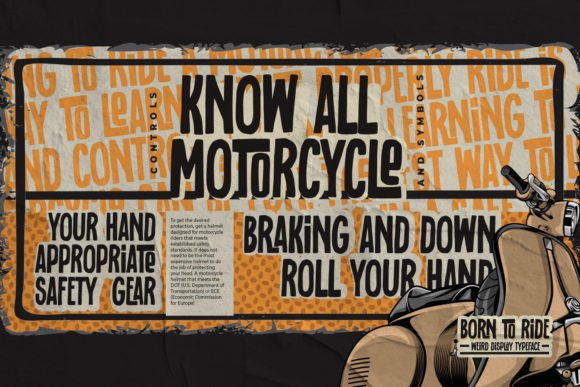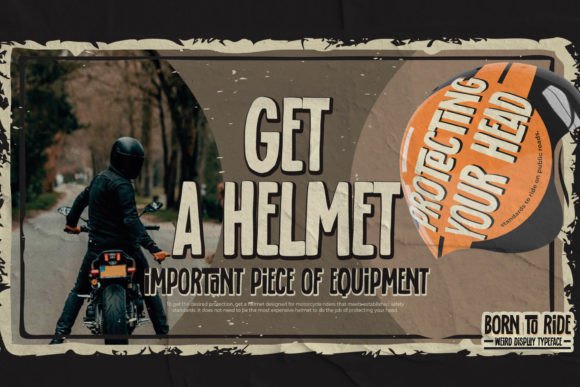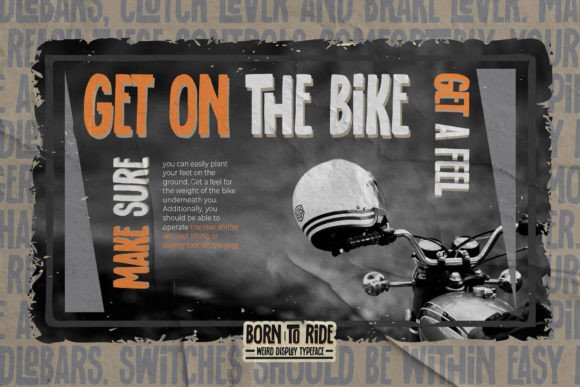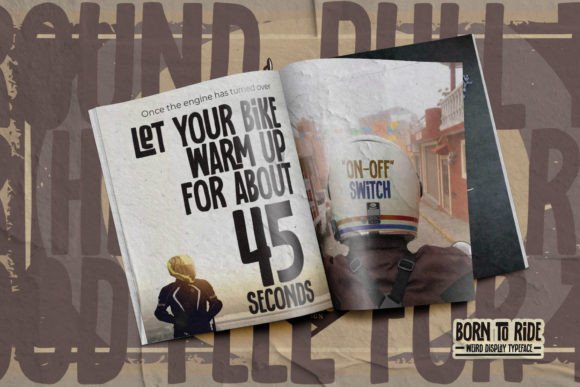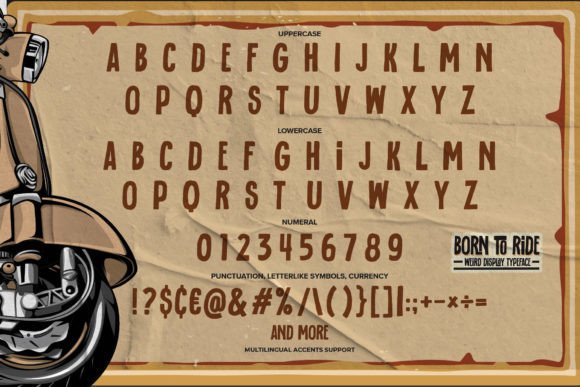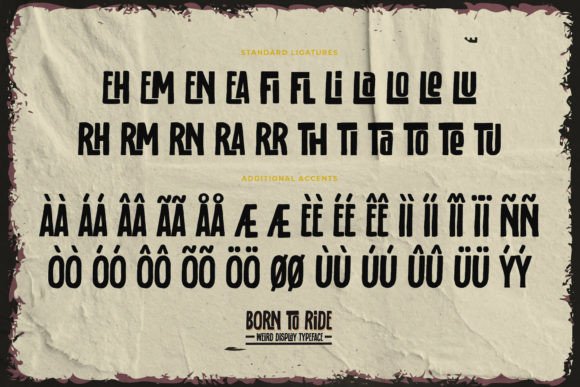
Introduction to Born to Ride Font
Born To Ride is a unique and interesting display font.
A little bit quirky, this font looks incredibly adept in a wide variety of contexts .
Key Features of Born to Ride Font